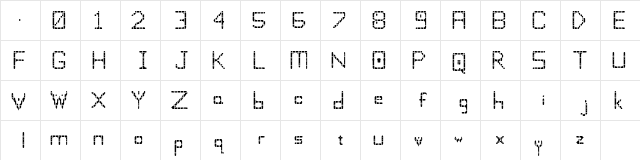
Wumpus Regular
| Designer | Jesse Lambert |
Design Context for Wumpus Typeface
Wumpus takes a measured approach to typography — its balanced proportions and neutral character make it a reliable workhorse for both digital and print work.